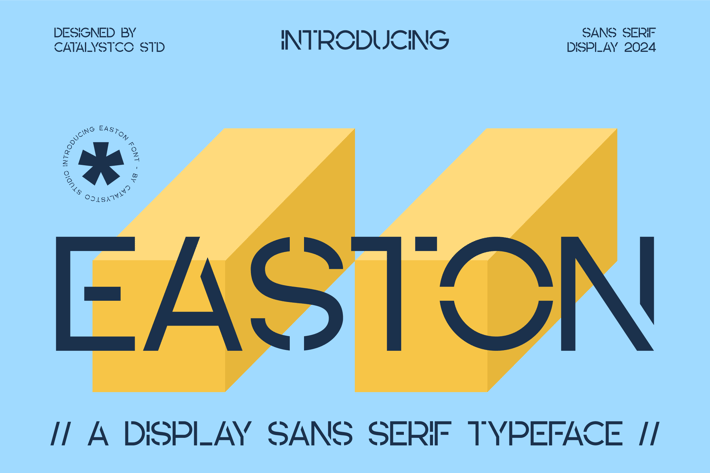
Easton DIsplay Sans Serif Font
Easton DIsplay Sans Serif Font typeface excellent used for the manufacture quote text, logotype, header magazine, and many more.
Ligatures & Alternate
Numeral & Punctuations